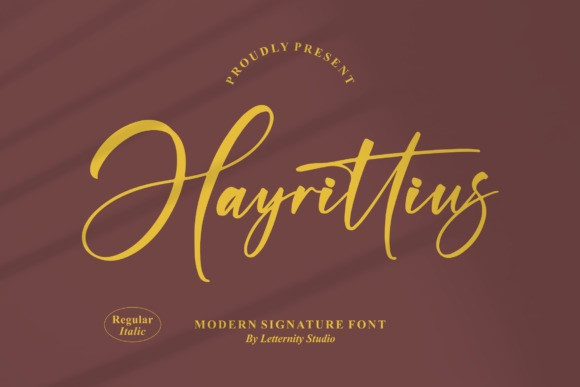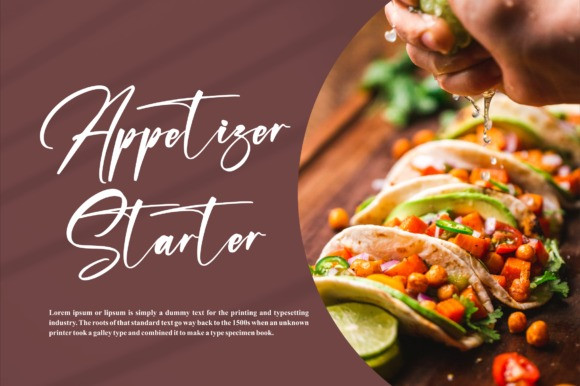
Hayrittius Font
Hayrittius is a relaxed and stylish script font. It is perfect for any branding project such as logos, t-shirt printing, creative products, and more. It will look extraordinary in a variety of contexts.